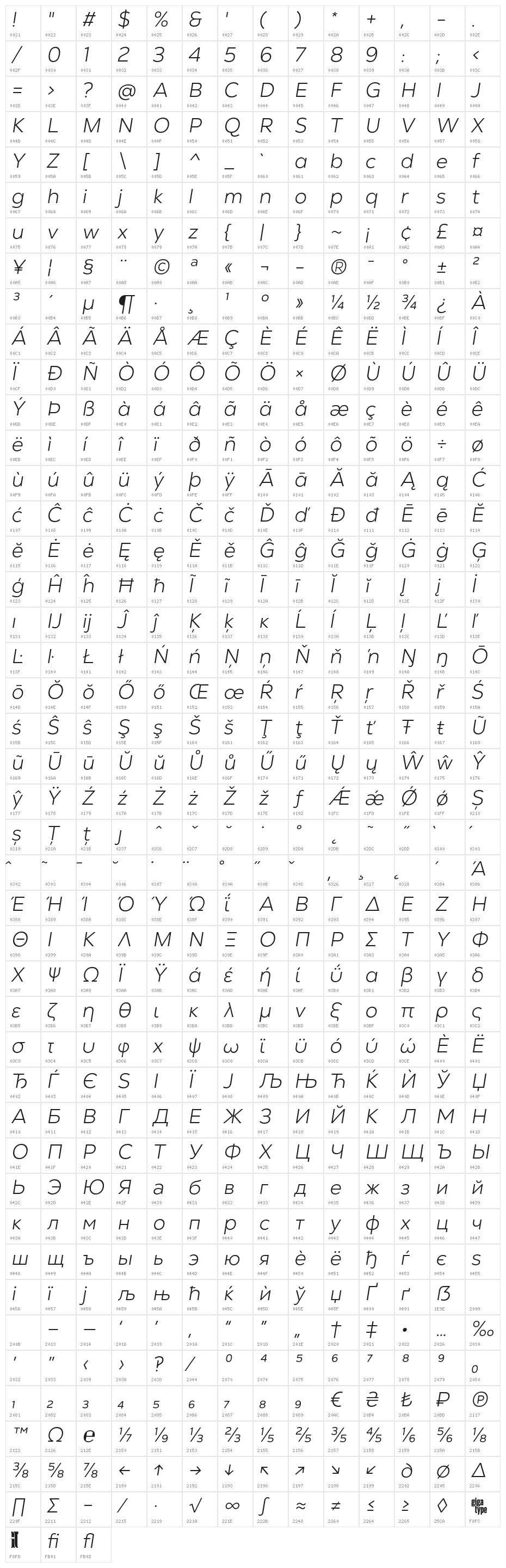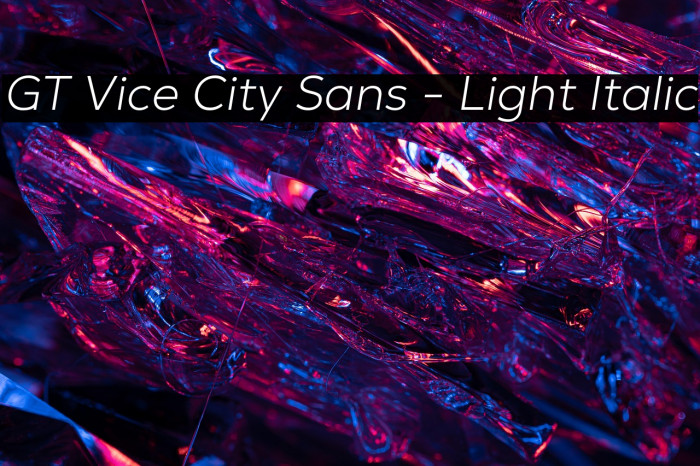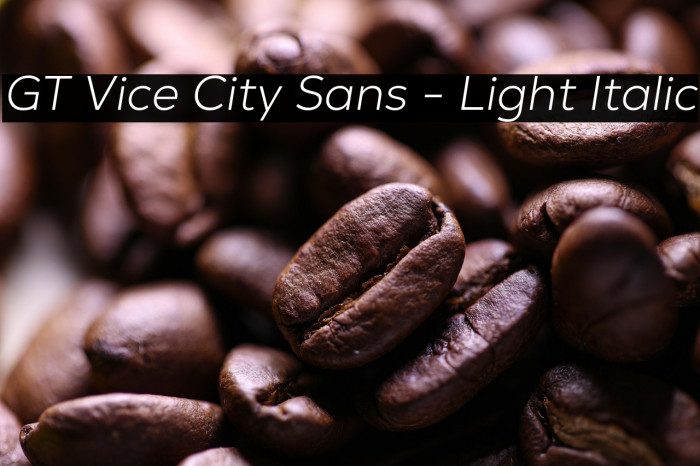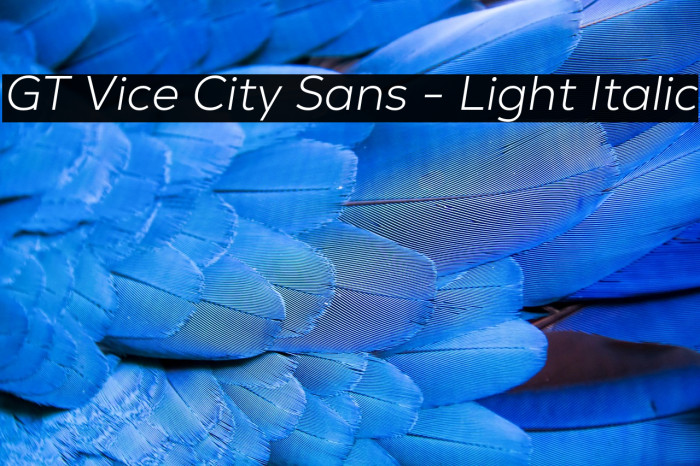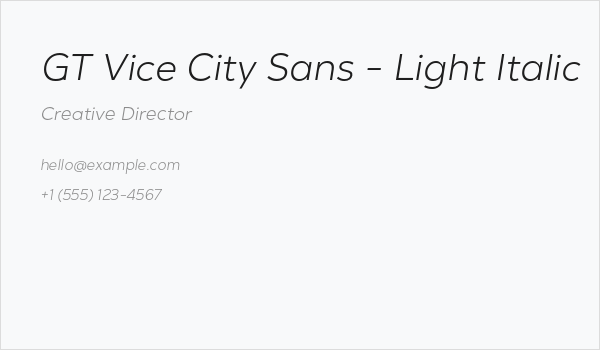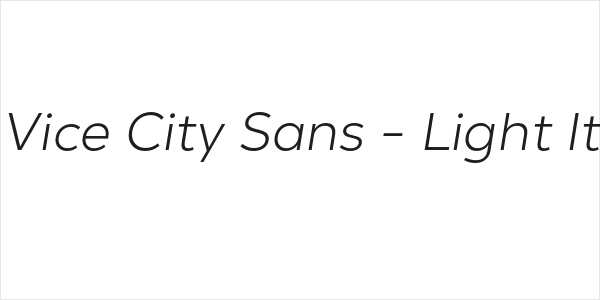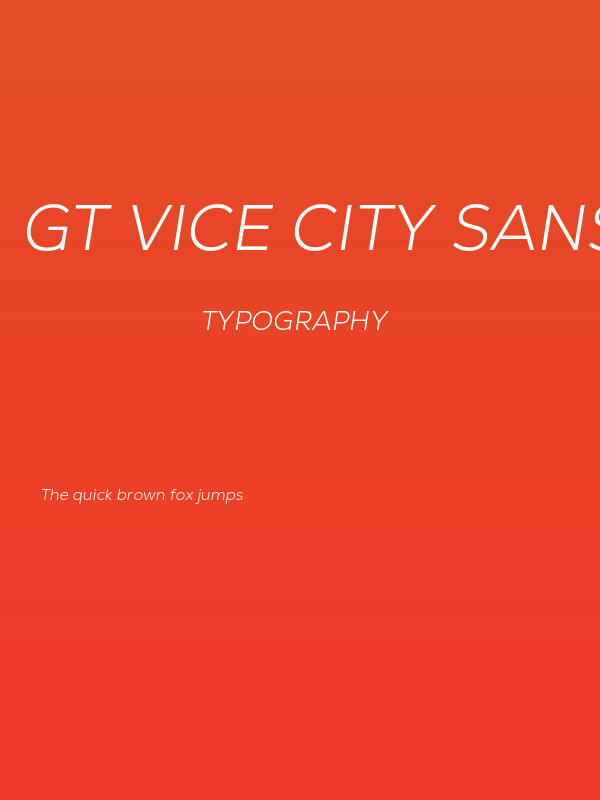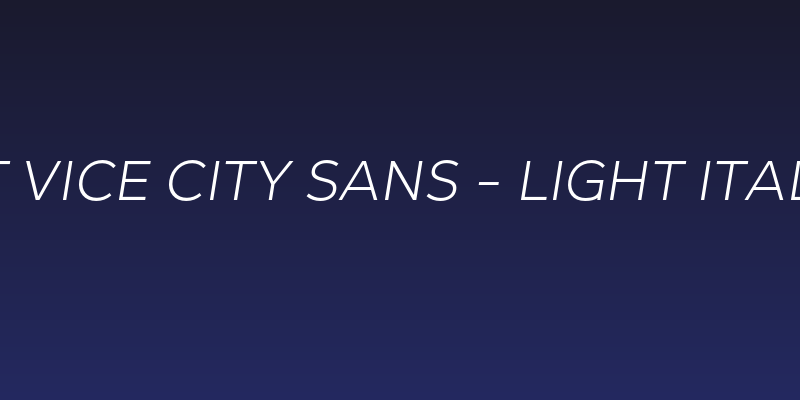
GT Vice City Sans - Light Italic Font
GT Vice City Sans - Light Italic Description
A sleek, modern sans-serif font with a light weight and italic style, featuring clean lines and a contemporary feel.
| Use Case | Headlines, Body text |
| Proposed Projects | Web design, branding, editorial design. |